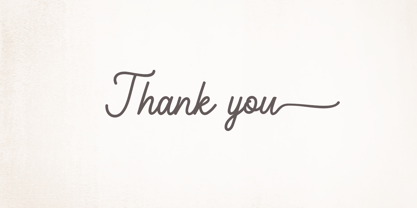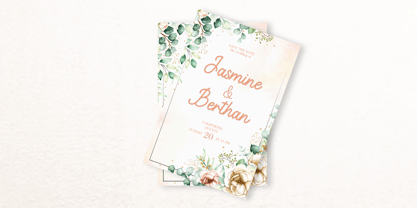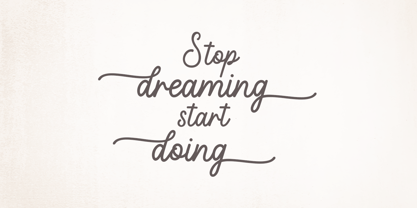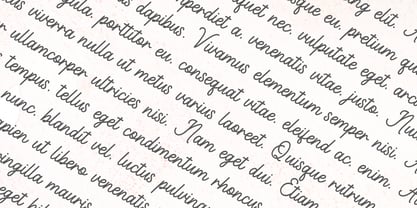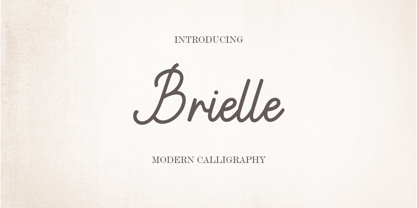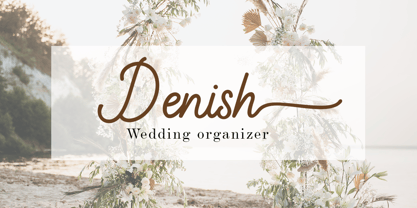
Brielle
by Amarlettering
The Brielle Font Family was designed by Amar Lettering and published by Amarlettering. Brielle contains 1 styles. More about this family
Experience the allure of Font Brielle, an artfully crafted script font that masterfully blends gentle subtlety with polished sophistication. This gem unfolds through fluid brushwork and graceful curves, transforming each sleek character into an embodiment of unparalleled finesse. Font Brielle makes a prime choice for those with discerning aesthetics, offering a lavish sprinkle of stylish grandeur. It radiates an air of upper-class sophistication that enlivens opulent wedding invitations, luxurious brand visuals, and eloquent editorial designs. Font Brielle is so much more than just a typeface; it encapsulates a striking style statement.
Designers: Amar Lettering
Foundry: Amarlettering